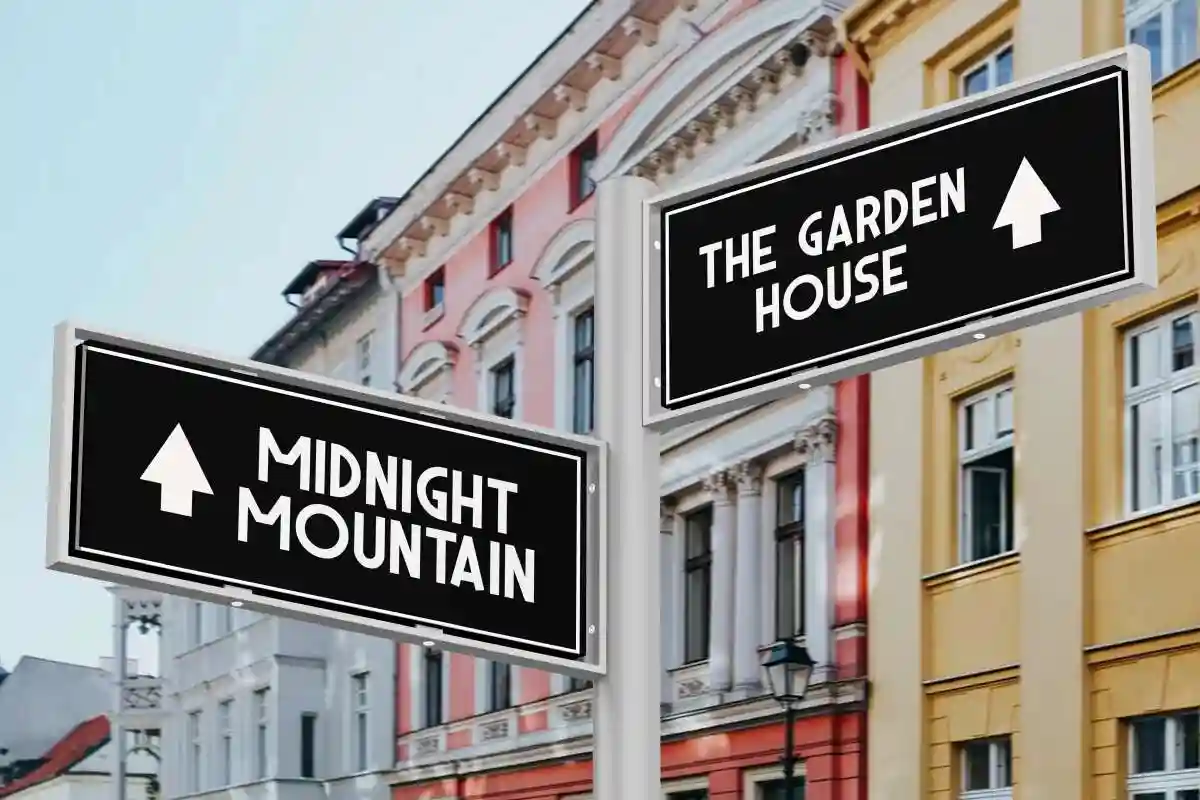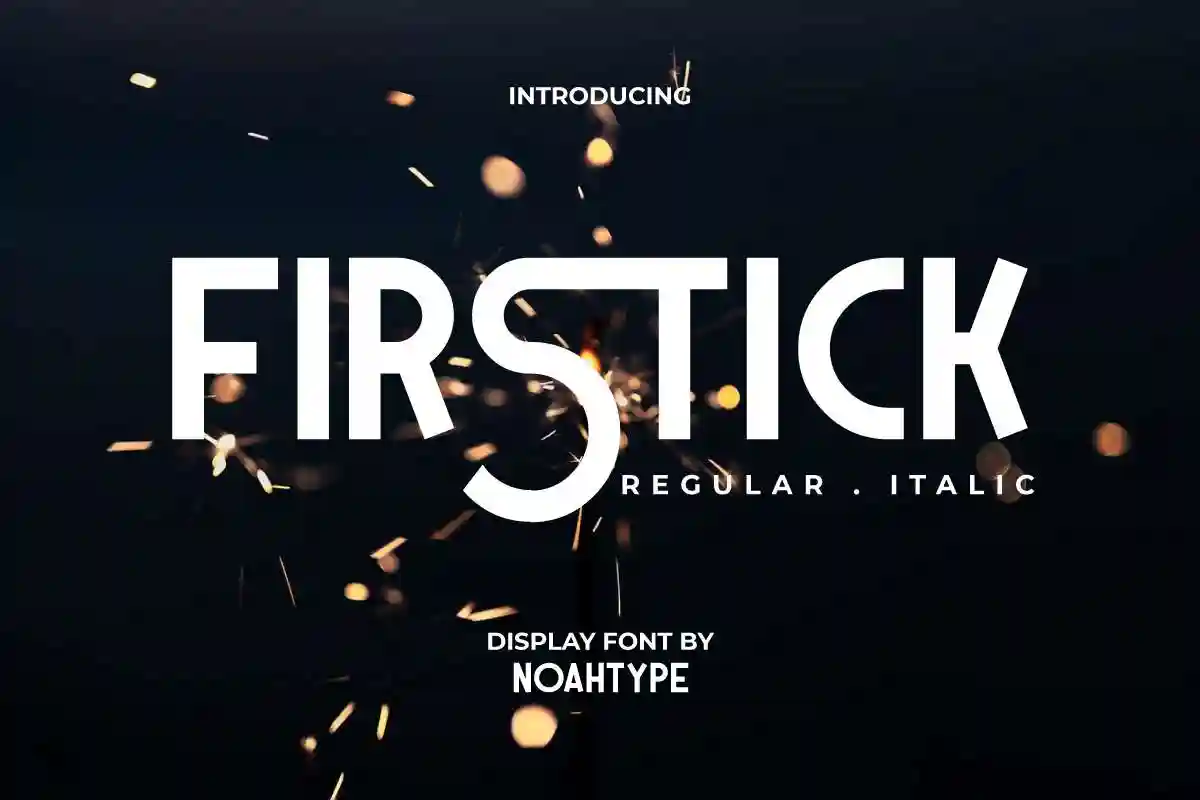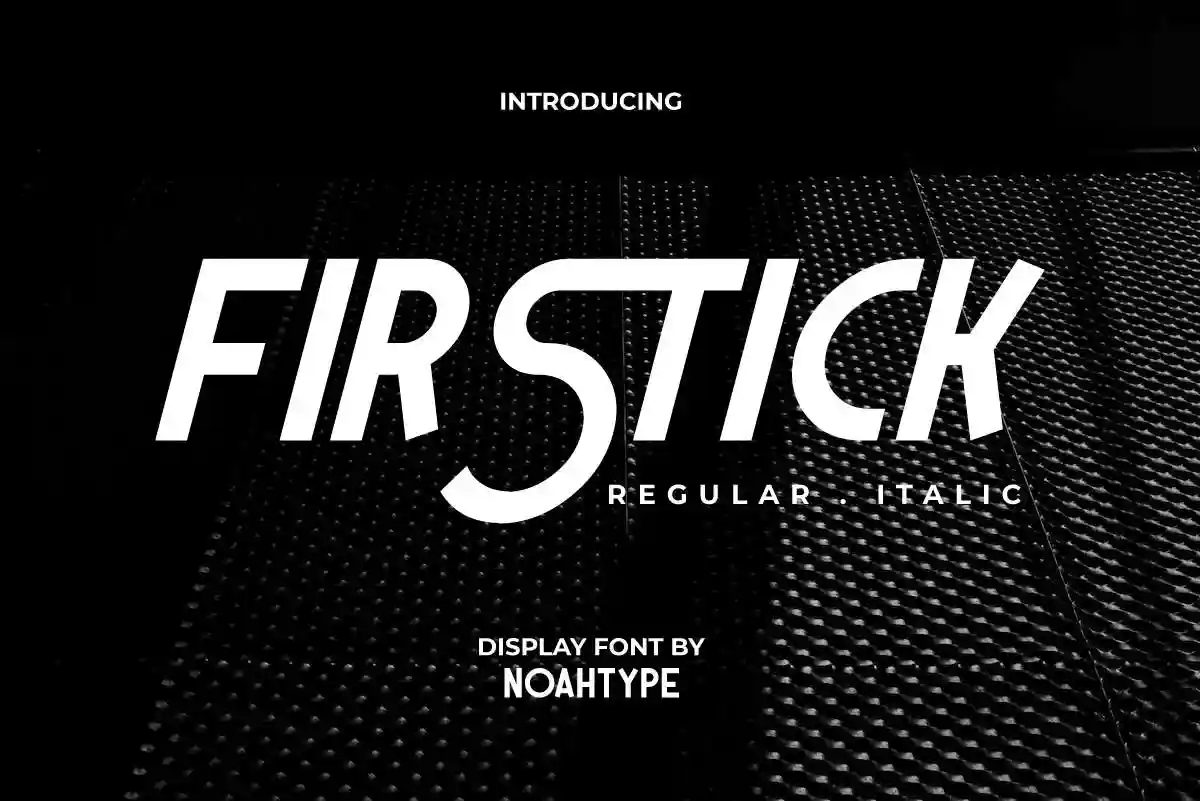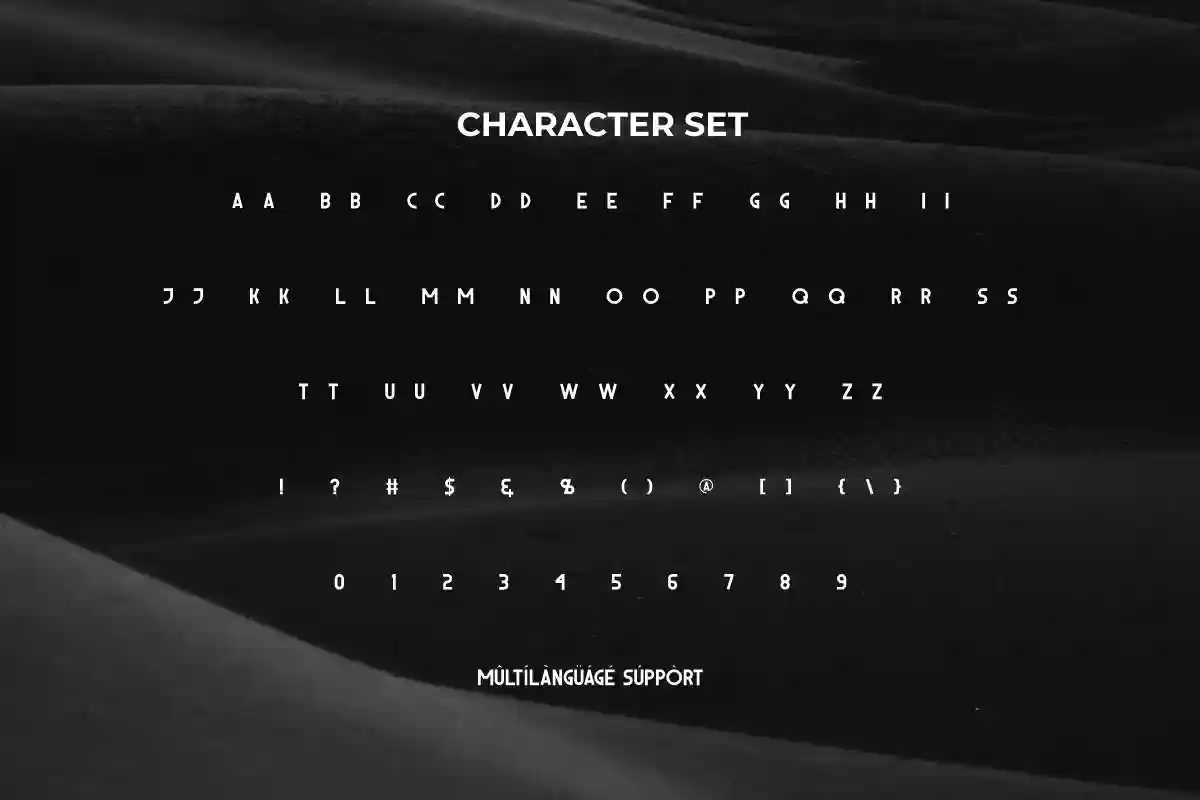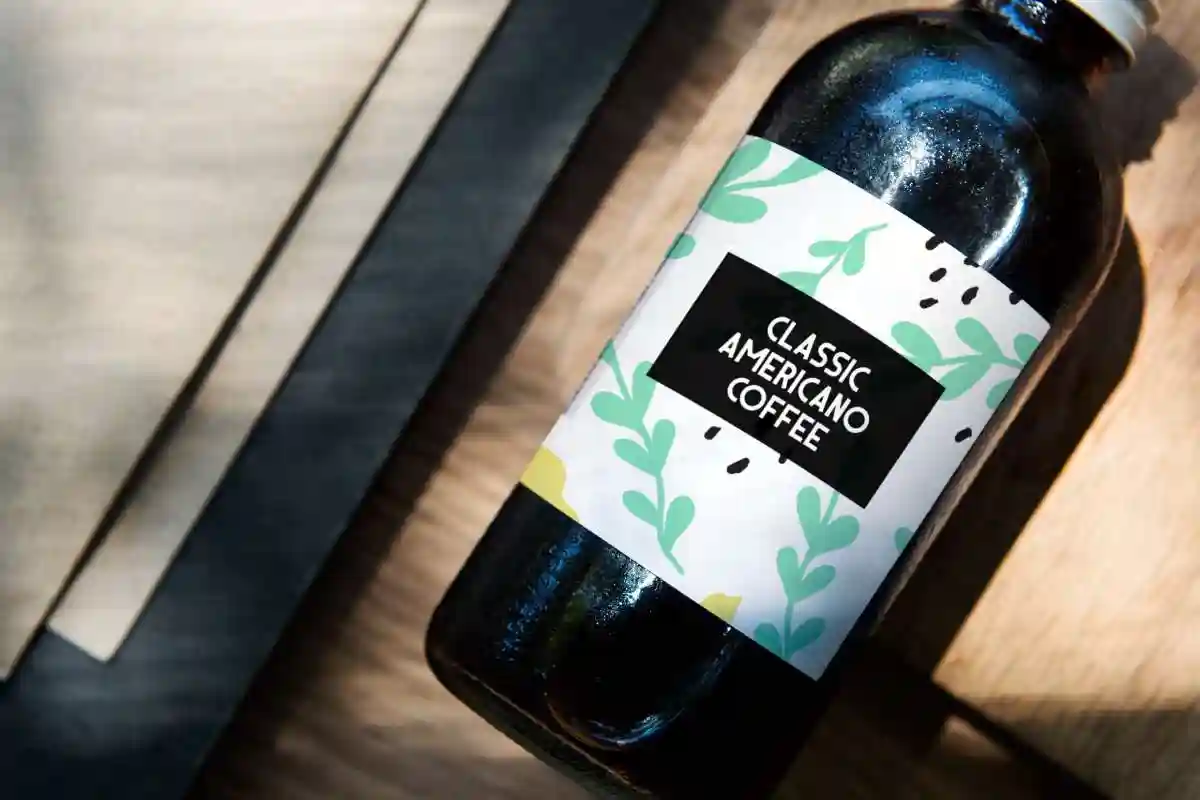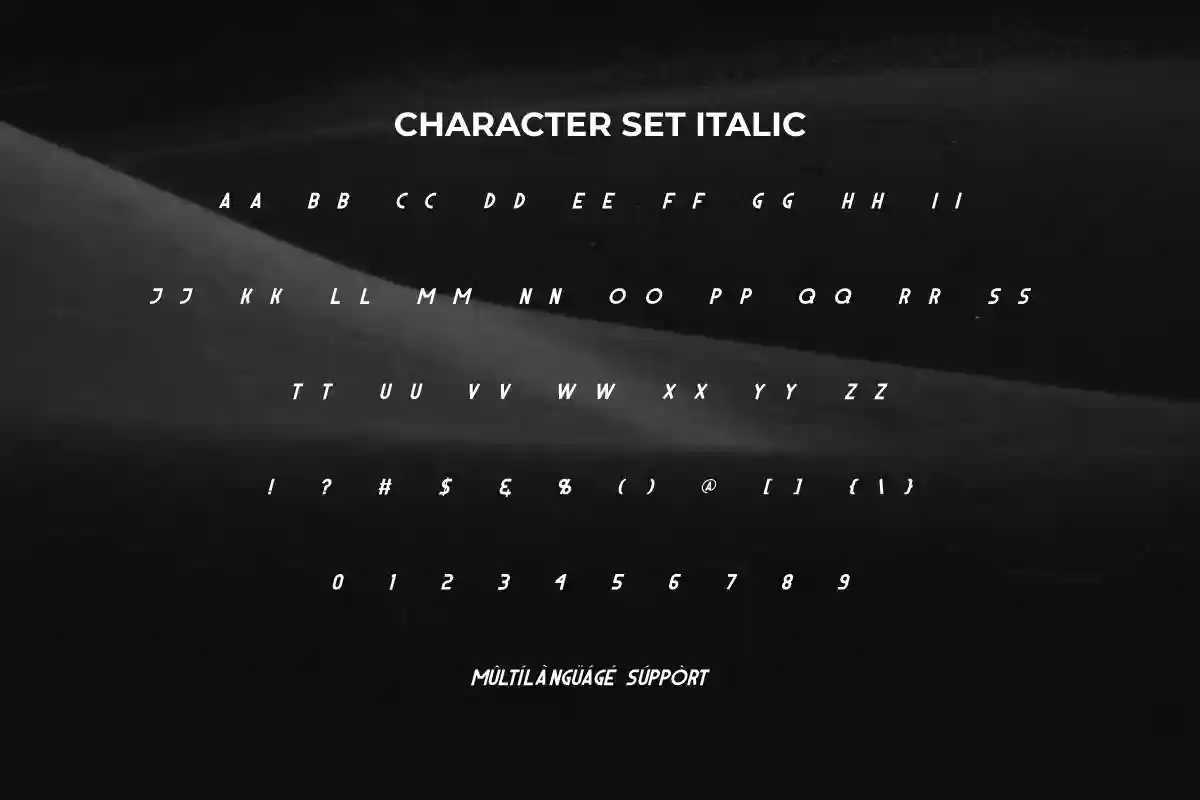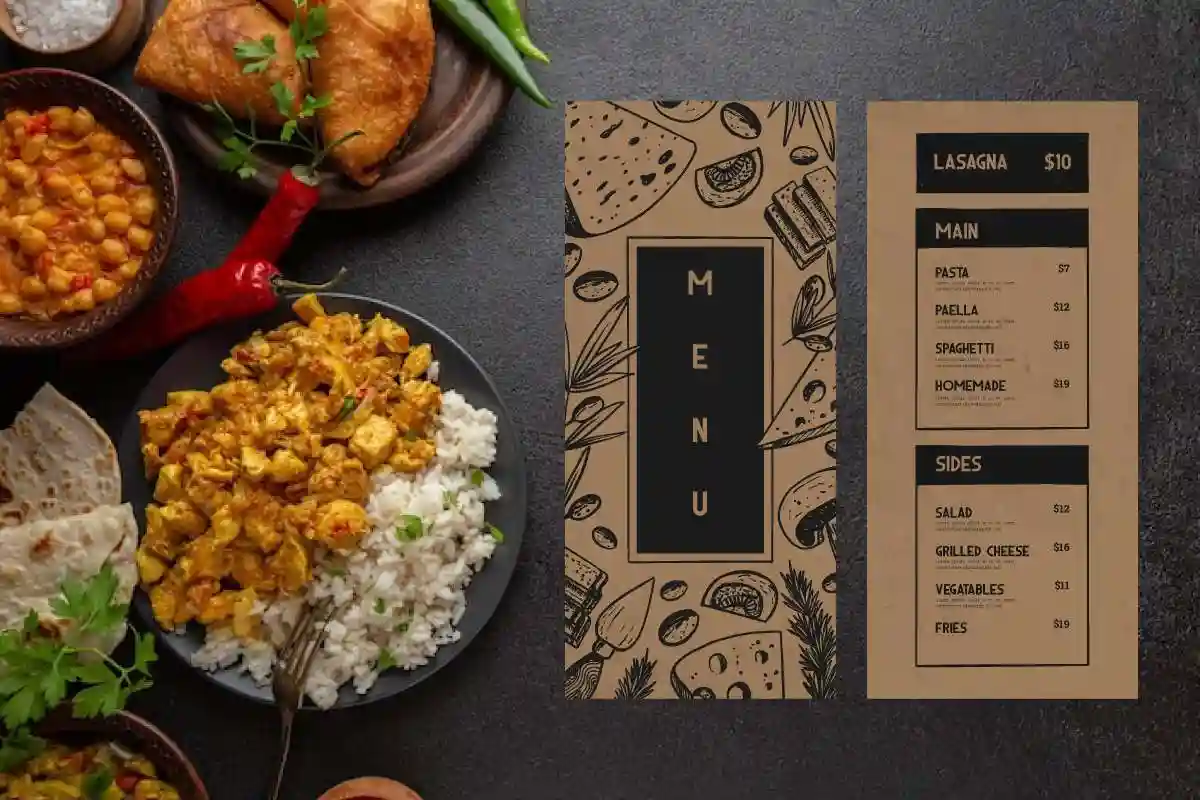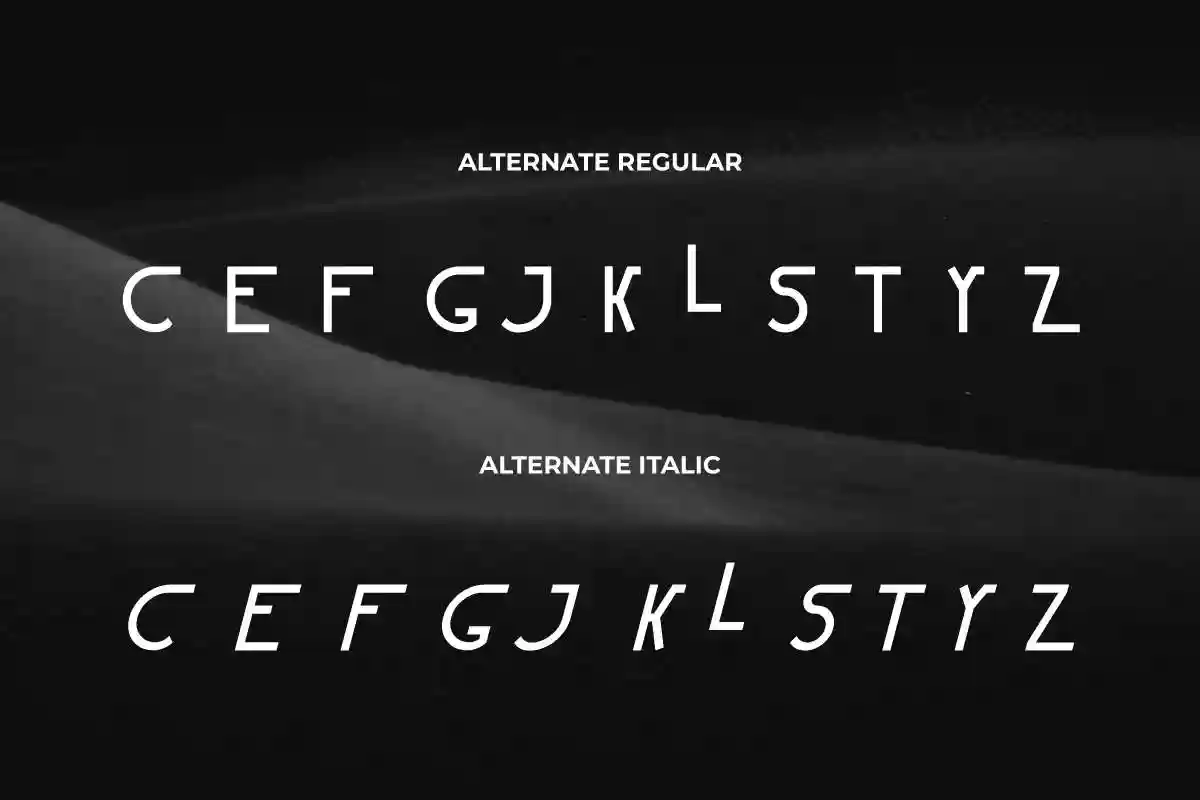
Firstick Font is a modern racing and sports inspired sans serif display font by NoahType. This font has a casual type that still looks modern for the various designs you make with Regular and Italic styles. It will be good for any designs, such as brand image, business card, catalog, cover, custom design, invitation, label, product packaging, quote, signage, stationery, web, and more!
Firstick Font includes full set of ALL CAPS for Uppercase and Lowercase Basic Characters, Numerals, Punctuation, Symbol, and Alternate. The characters of this font will give stylish looks and great choice for many industries, such as advertisement, café, event organizer, fashion, perfume, printing, publishing, sport tools, etc.